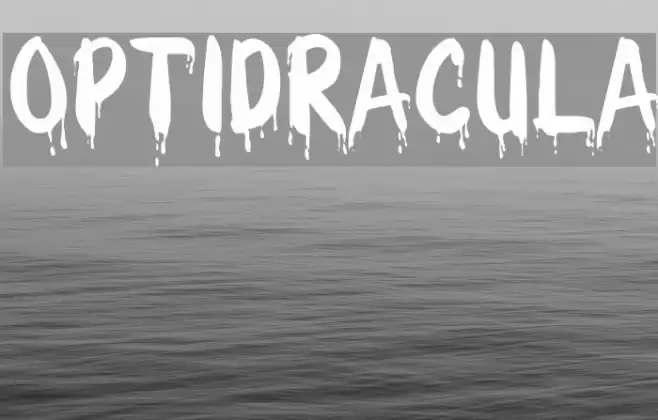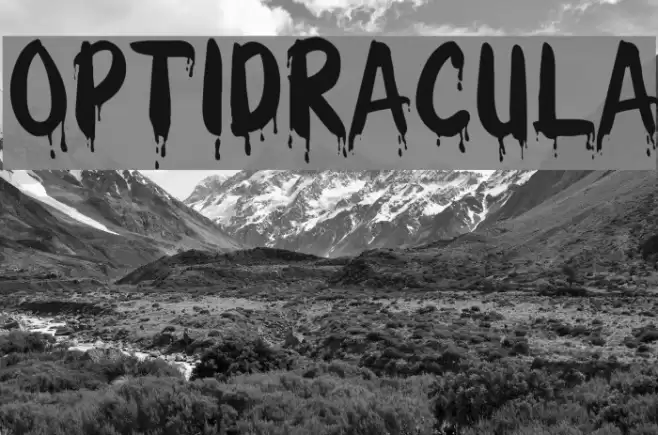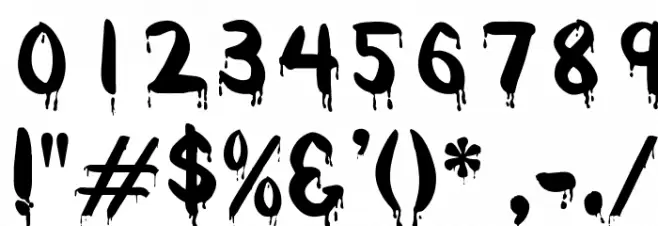
OPTIDracula Font
OPTIDracula Description
This font features a unique, dripping effect that gives it a spooky and eerie appearance, reminiscent of horror themes. The characters are bold and slightly irregular, with each letter appearing as if it is melting or bleeding. This design choice adds a dramatic flair, making it ideal for Halloween or horror-themed projects. The uppercase and lowercase letters maintain a consistent style, with each character exhibiting the same dripping effect. Numbers and special characters are also included, ensuring versatility in usage. The font's overall aesthetic is both eye-catching and unsettling, perfect for creating a chilling atmosphere.
A bold, dripping font with a spooky, horror-themed aesthetic from Uncategorized fonts.
- Proposed Projects: Ideal for Halloween invitations, horror movie posters, themed party decorations, and spooky event flyers.